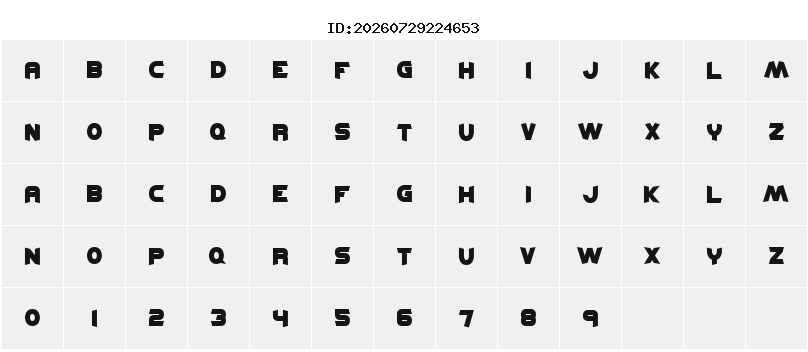
• Font Name: Kickflip BRK
About Kickflip BRK.ttf
Kickflip BRK.ttf is a modern, elegant sans-serif font designed for ultimate readability and visual harmony. Perfect for branding, headlines, web design, and print materials.